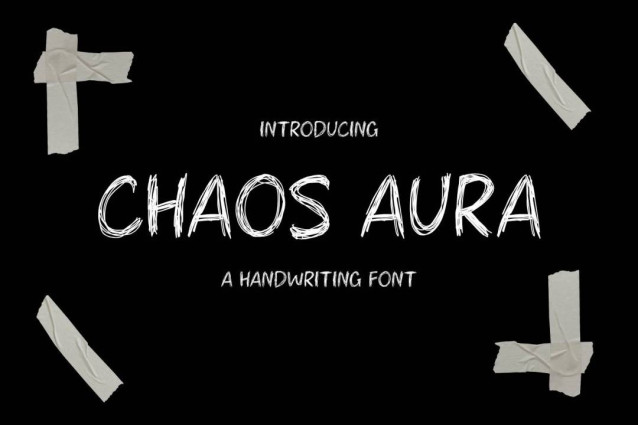
Chaos Aura Font
Chaos Aura Font is a simple and friendly handwritten font. Its natural and unique style makes it incredibly fitting to a large pool of designs. The only limit is your imagination!